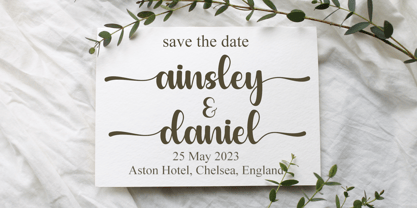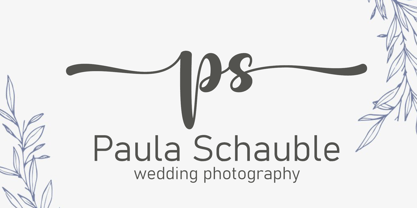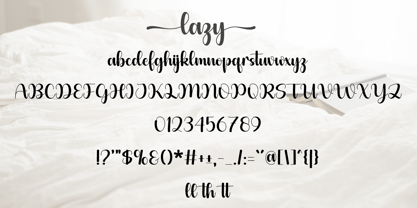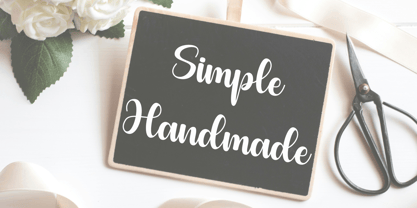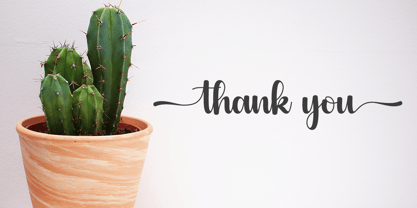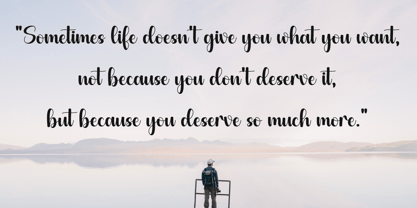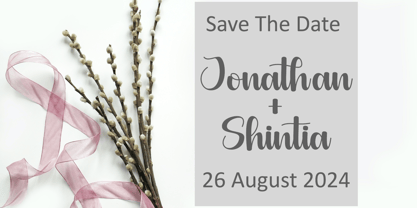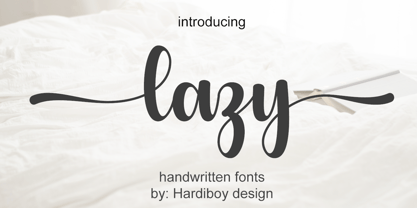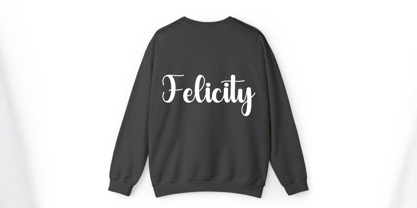
Lazy
por Hardiboy Design
La familia tipográfica Lazy fue diseñada por Hardiman Siswanto y publicada por Hardiboy Design. Lazy contiene 1 estilos.
lazy is a stylish and incredibly elegant handwritten font. It looks stunning on wedding invitations, thank you cards, quotes, greeting cards, logos, business cards, and every other design which needs a handwritten touch.
Diseñadores: Hardiman Siswanto
Editorial: Hardiboy Design
Fundición: Hardiboy Design
Propietario del diseño: Hardiboy Design
My name is Hardiman Siswanto, I am 25 years old and come from Magelang, Indonesia. I'm a font maker. So far, I have created 10 fonts; script fonts are my favorite. I make a font with the characters that I have; this makes the characteristics of my font different from what others make. I give my brand the name "Hardiboy Design". I like it when people use my font for their work. I hope that I can earn income from the fonts that I have created.